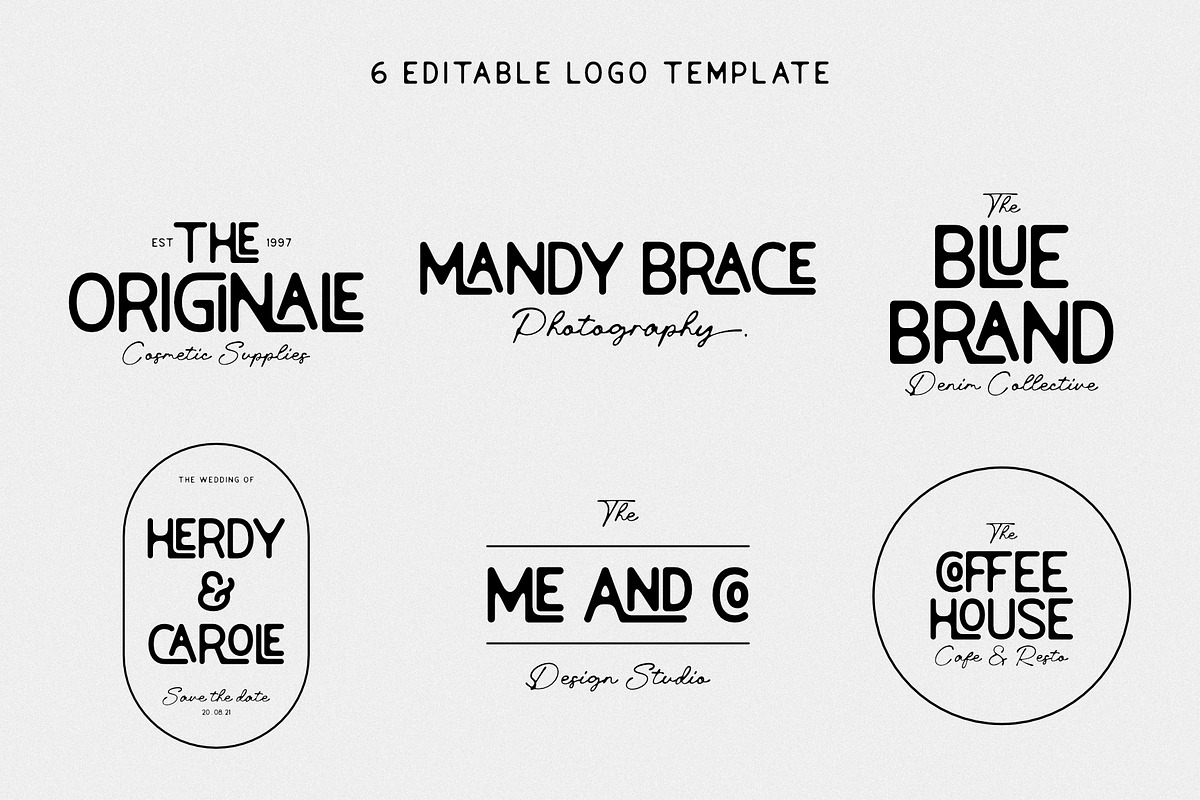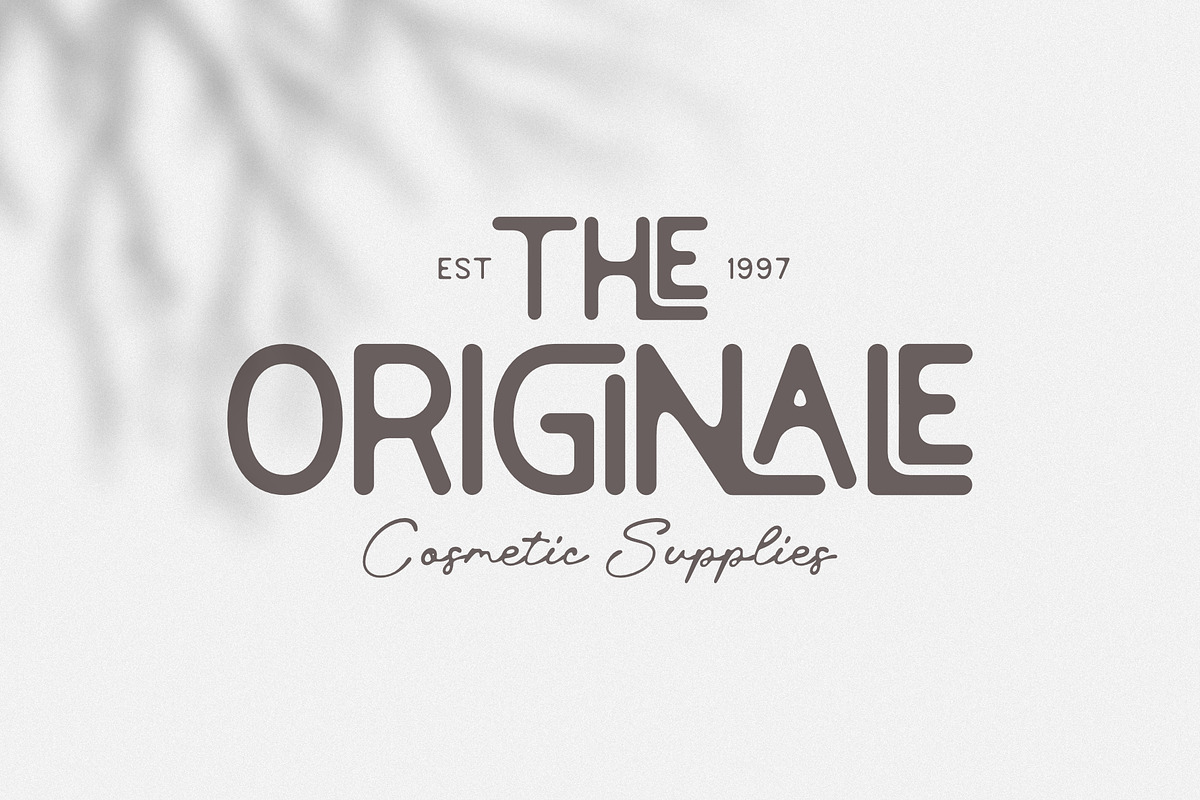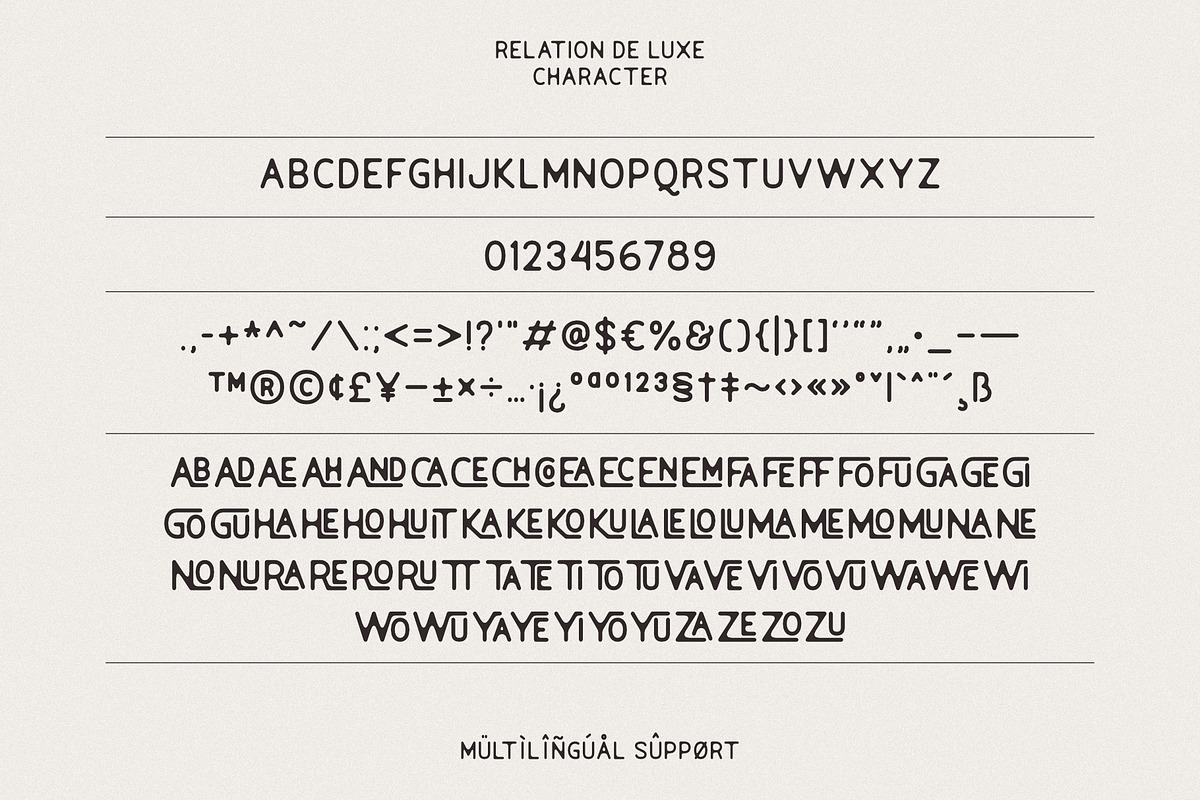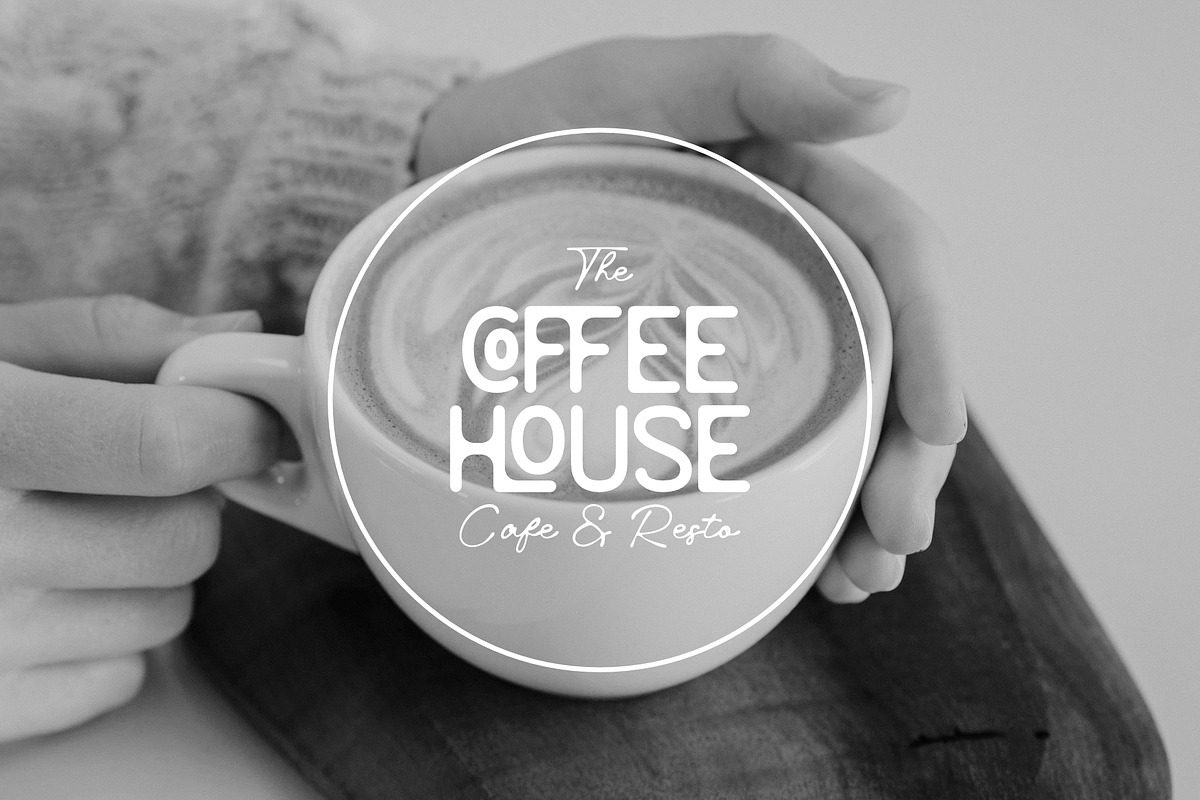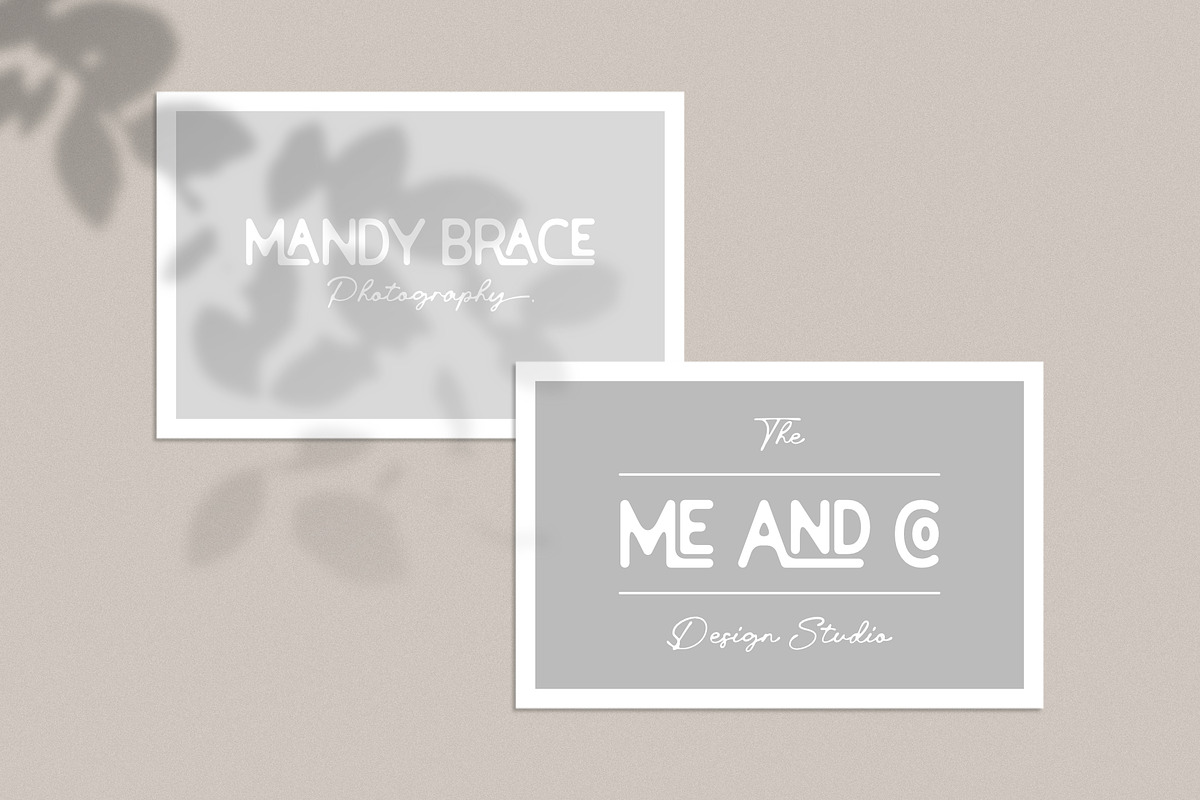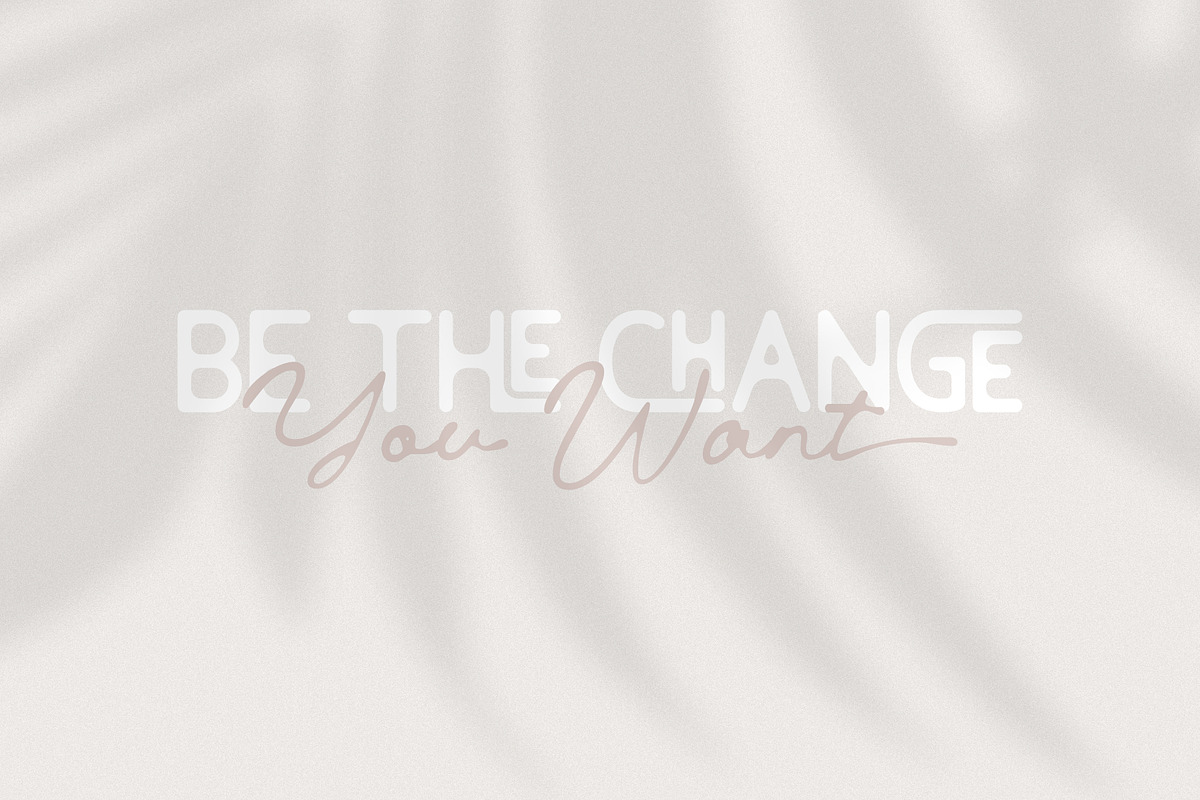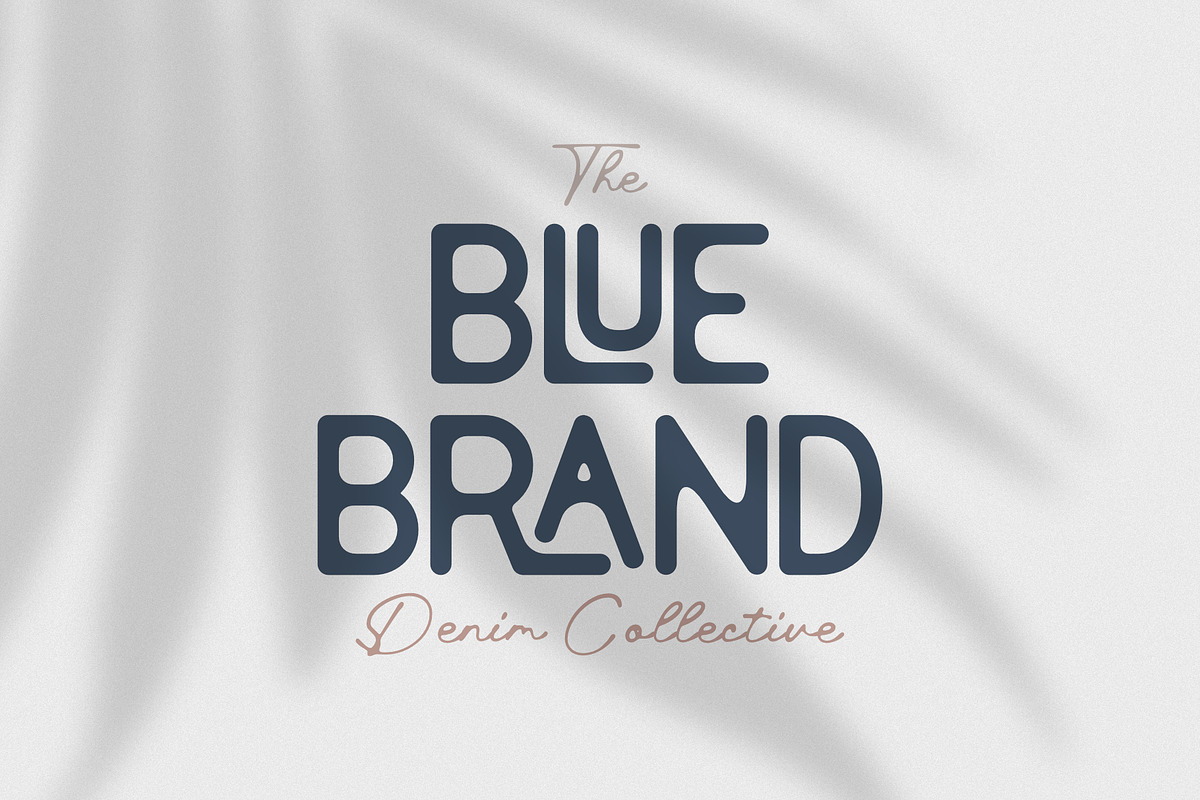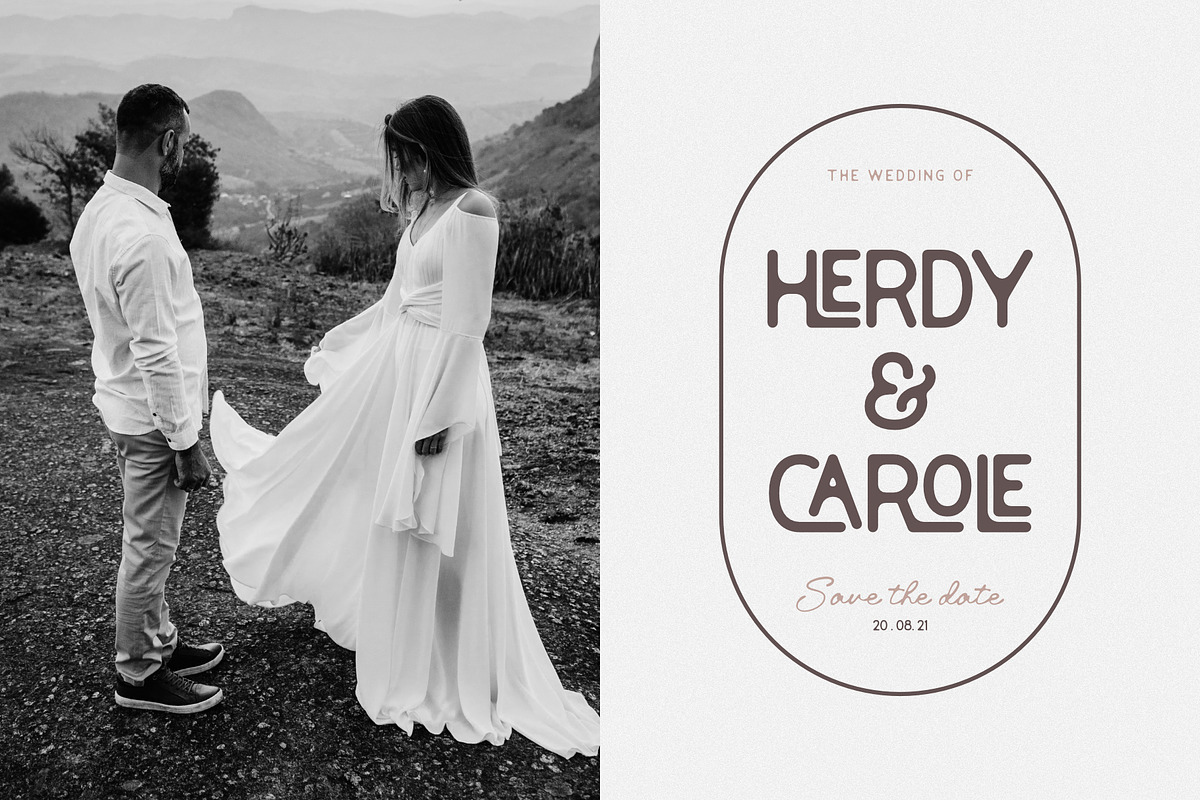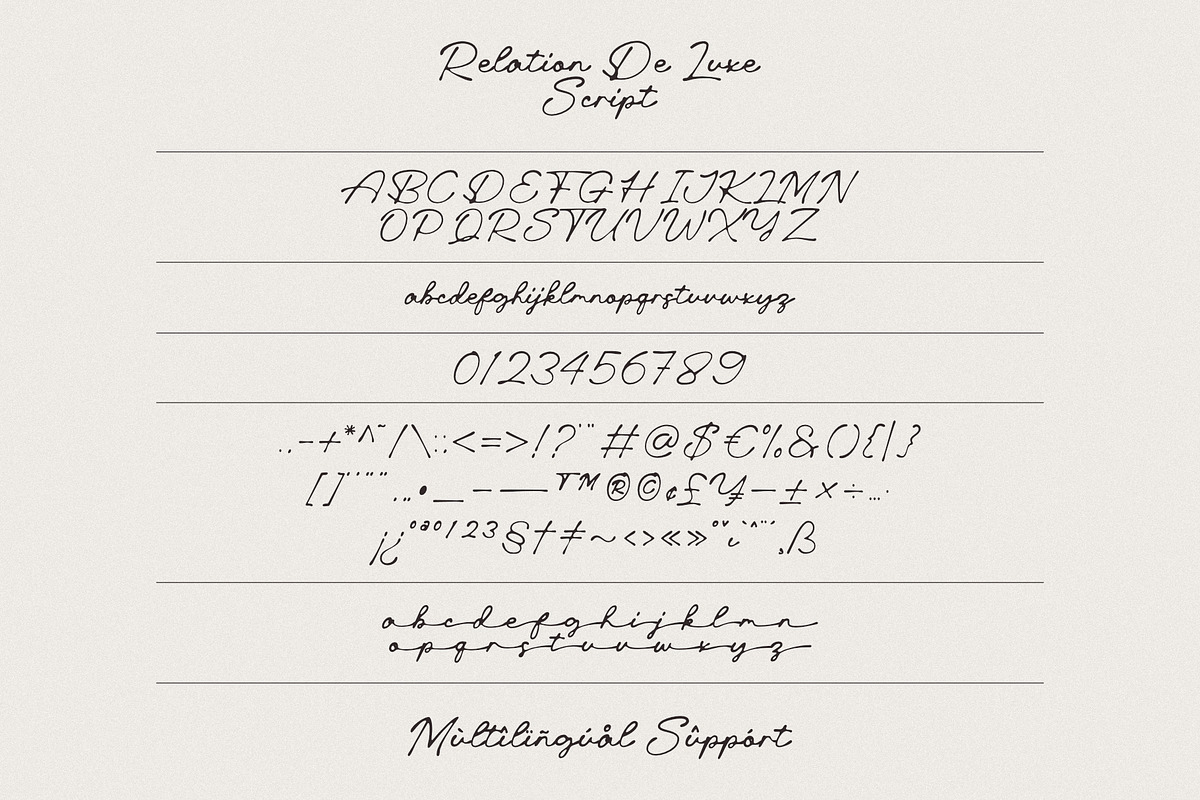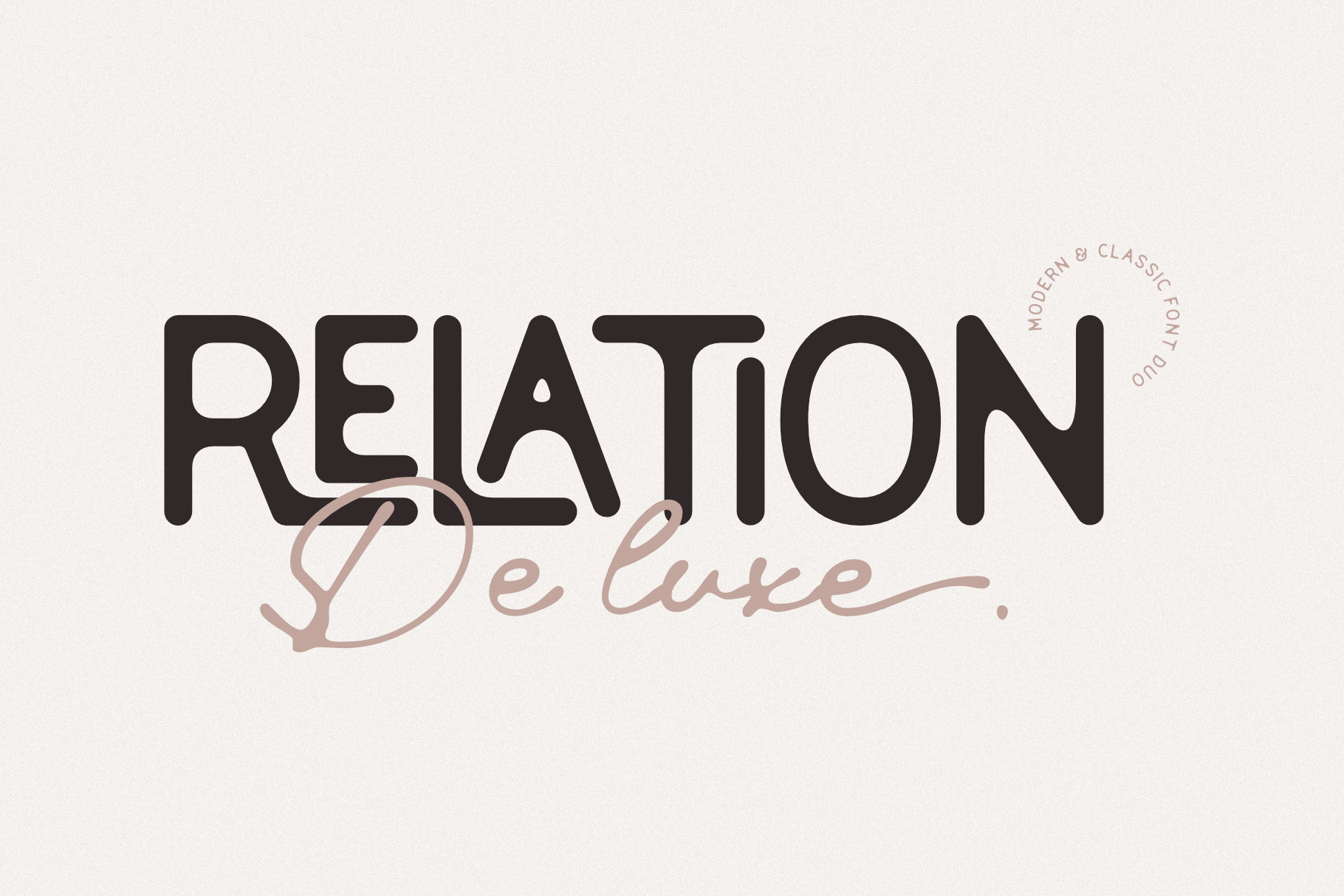
Relation De Luxe - Font Duo
This paired font looks modern and classic. Charming with round and blurred effects. It is suitable for you to apply to logo designs, branding, magazine covers, social media posts, quotes, wedding invitation, packaging labels, business card and much more to be applied.
- Features: Uppercase, Lowercase, Numeral, Punctuation, Multilingual, Alternates, Ligatures, & PUA Encoded.
- Multilingual contained: Afrikaans, Albanian, Asu, Basque, Bemba, Bena, Breton, Catalan, Chiga, Cornish, Danish, Dutch, English, Estonian, Filipino, Finnish, French, Friulian, Galician, German, Gusii, Indonesian, Irish, Italian, Kabuverdianu, Kalenjin, Kinyarwanda, Luo, Luxembourgish, Luyia, Machame, Makhuwa-Meetto, Makonde, Malagasy, Manx, Morisyen, North Ndebele, Norwegian Bokmål, Norwegian Nynorsk, Nyankole, Oromo, Portuguese, Quechua, Romansh, Rombo, Rundi, Rwa, Samburu, Sango, Sangu, Scottish Gaelic, Sena, Shambala, Shona, Soga, Somali, Spanish, Swahili, Swedish, Swiss German, Taita, Teso, Uzbek (Latin), Volapük, Vunjo, Zulu.